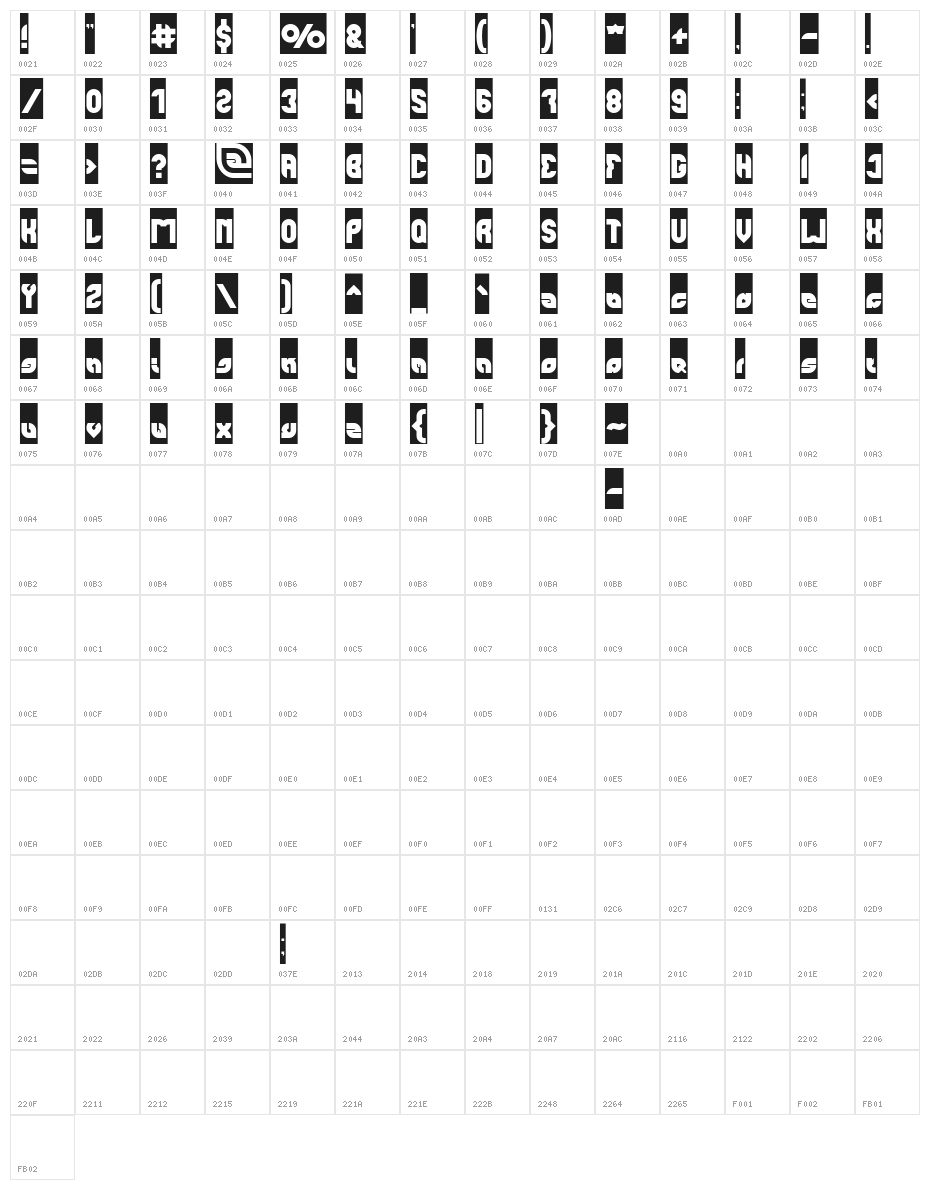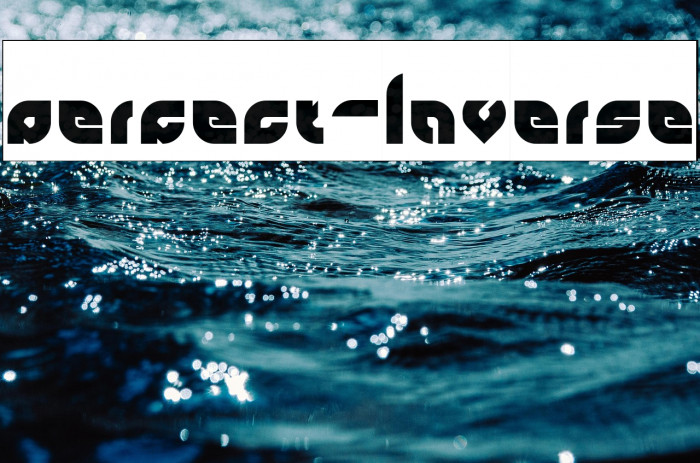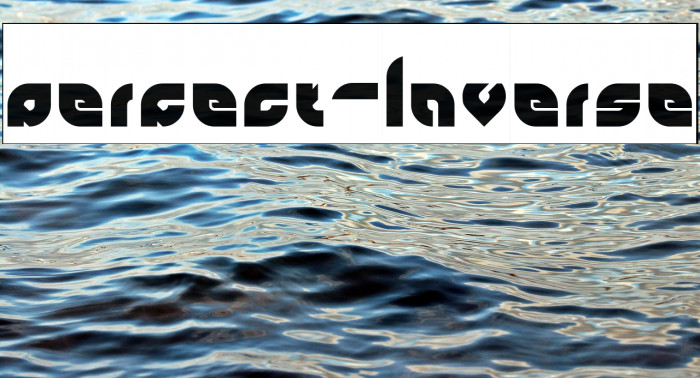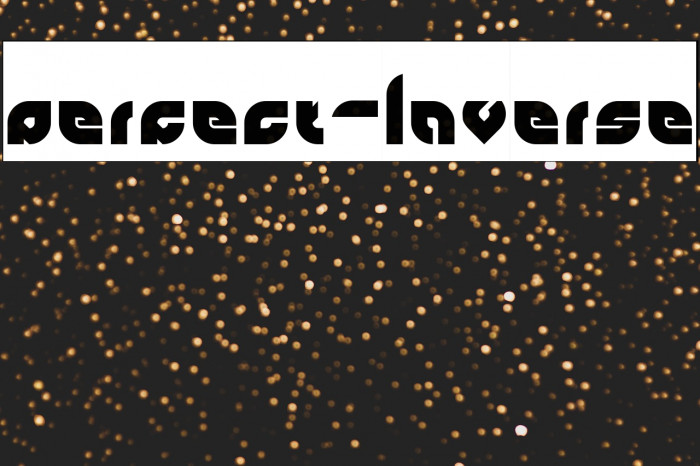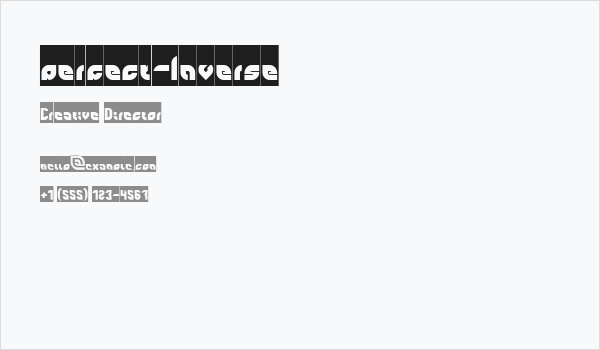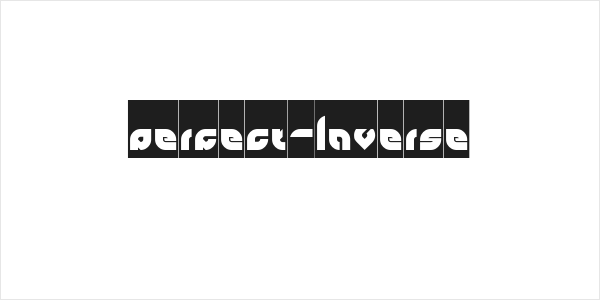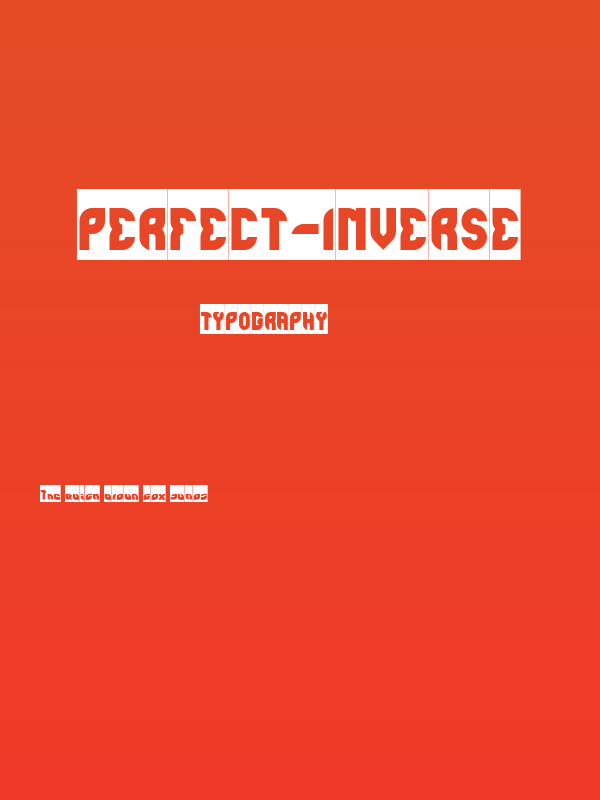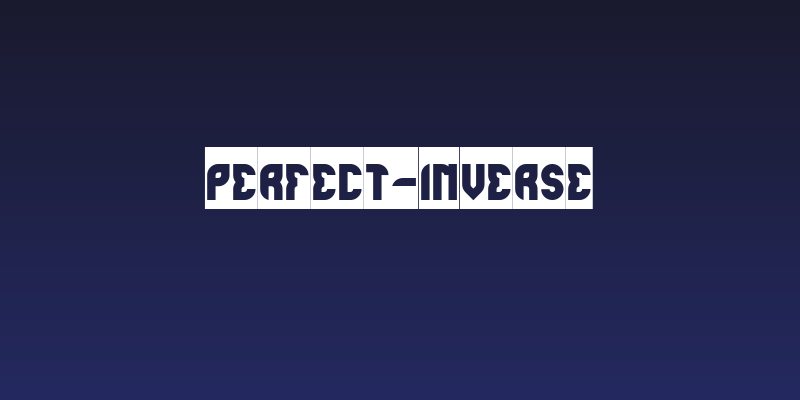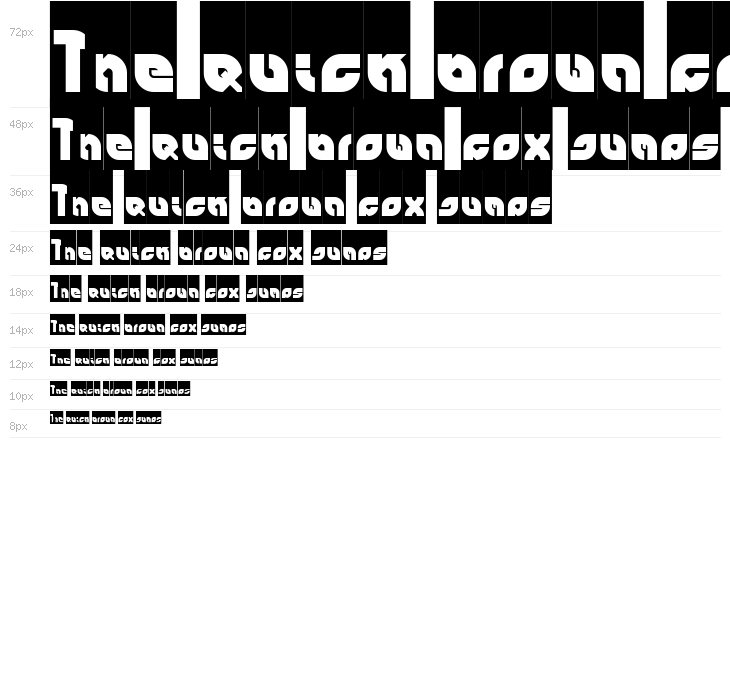
perfect-Inverse Font
perfect-Inverse Description
This font features a bold and striking design with a unique inverse style, where parts of the letters are cut out, creating a visually engaging effect. The uppercase and lowercase letters maintain a consistent geometric form, with sharp angles and clean lines that contribute to its modern appearance. The numerals and special characters follow the same design principles, ensuring uniformity across all glyphs. This font's distinct style makes it ideal for eye-catching designs that require a strong visual impact.
| Proposed Projects | This font is perfect for modern branding projects, poster designs, and any creative work that requires a bold statement. It can also be used effectively in digital media, such as website headers or social media graphics. |